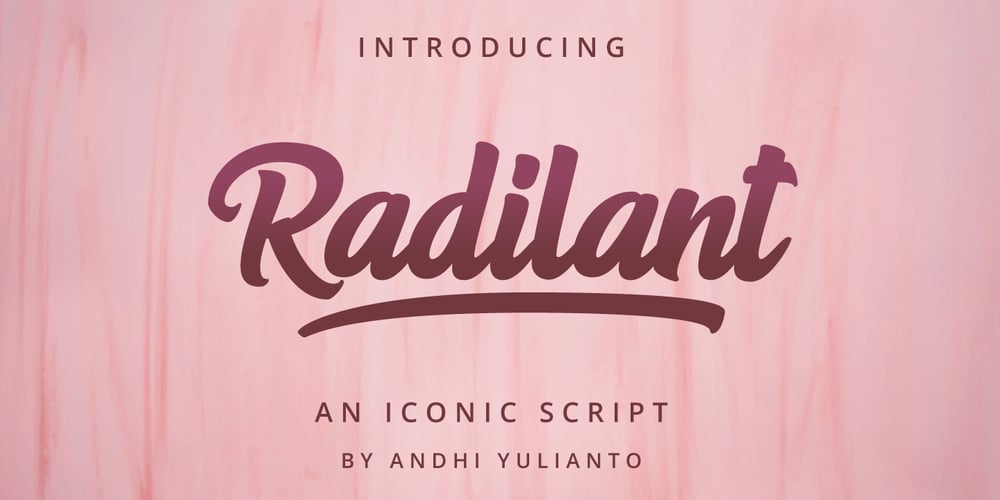
Radilant Font Family was designed by Andhi Yulianto and published by great19. Radilant contains 1 styles and family package options. Radilant script is a bold typeface, an incredible font to make iconic word marks, logotypes, typography. A simple script but also powerful for branding project, it is easy to use. This font is perfect to make an eyecatching tittle on a poster, music album, book tittle and more. Radiant script was made manually, handwritten with a brush pen, then carefully digitalized using vector software to make it nice and correctly proportional.